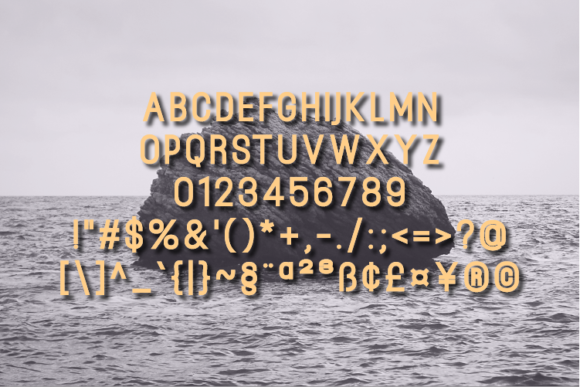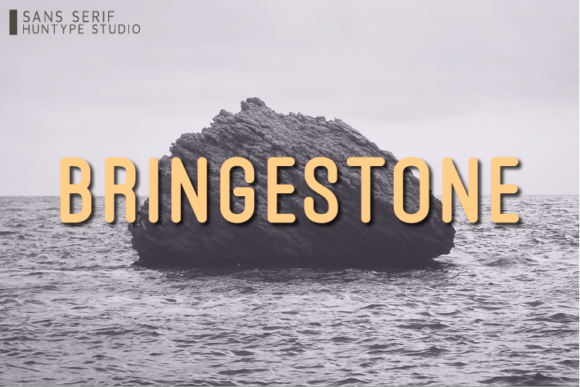
Bringestone Font: The Perfect Blend of Smooth and Sharp for Your Design Needs
In the world of typography, fonts play a crucial role in conveying the message and aesthetic of a design. With numerous font styles available, finding the perfect one that complements your design can be a daunting task. However, if you’re looking for a smooth sans serif font that strikes the right balance between smooth and sharp, look no further than Bringestone Font. In this article, we’ll explore the features and benefits of Bringestone Font, and why it’s an excellent choice for designers and crafters.
What is Bringestone Font?
Bringestone Font is a modern sans serif font designed to provide a perfect blend of smooth and sharp elements. Its unique design makes it an excellent choice for a wide range of design applications, from digital projects to print materials. The font’s smooth curves and sharp lines create a beautiful contrast that adds visual interest to any design.
Key Features of Bringestone Font
- Smooth Sans Serif Design: Bringestone Font features a smooth sans serif design that is both elegant and modern.
- Perfectly Balanced Mix: The font’s unique design combines smooth curves and sharp lines, creating a perfectly balanced mix that adds visual interest to any design.
- Highly Versatile: Bringestone Font is highly versatile and can be used for a wide range of design applications, including digital projects, print materials, and more.
- Easily Readable: The font is designed to be easily readable, making it an excellent choice for body text and headings.
Benefits of Using Bringestone Font
Bringestone Font offers several benefits to designers and crafters, including:
- Unique Design: Bringestone Font’s unique design sets it apart from other fonts, making it an excellent choice for designers looking to add a touch of elegance and sophistication to their designs.
- Improved Readability: The font’s smooth curves and clear lines make it easily readable, even at small font sizes.
- Flexibility: Bringestone Font can be used for a wide range of design applications, from digital projects to print materials.
Who Can Benefit from Bringestone Font?
Bringestone Font is an excellent choice for a wide range of designers and crafters, including:
- Graphic Designers: Graphic designers can use Bringestone Font for a variety of design projects, including logos, brochures, and business cards.
- Digital Designers: Digital designers can use Bringestone Font for digital projects, such as websites, mobile apps, and social media graphics.
- Crafters: Crafters can use Bringestone Font for a variety of crafting projects, including handmade cards, scrapbooking, and DIY projects.
- Marketeers: Marketeers can use Bringestone Font for marketing materials, such as flyers, posters, and email marketing campaigns.
In conclusion, Bringestone Font is an excellent choice for designers and crafters looking for a smooth sans serif font that combines the perfect mix of smooth and sharp elements. Its unique design, versatility, and readability make it an excellent choice for a wide range of design applications. Whether you’re a graphic designer, digital designer, crafter, or marketer, Bringestone Font is sure to complement your design needs perfectly.